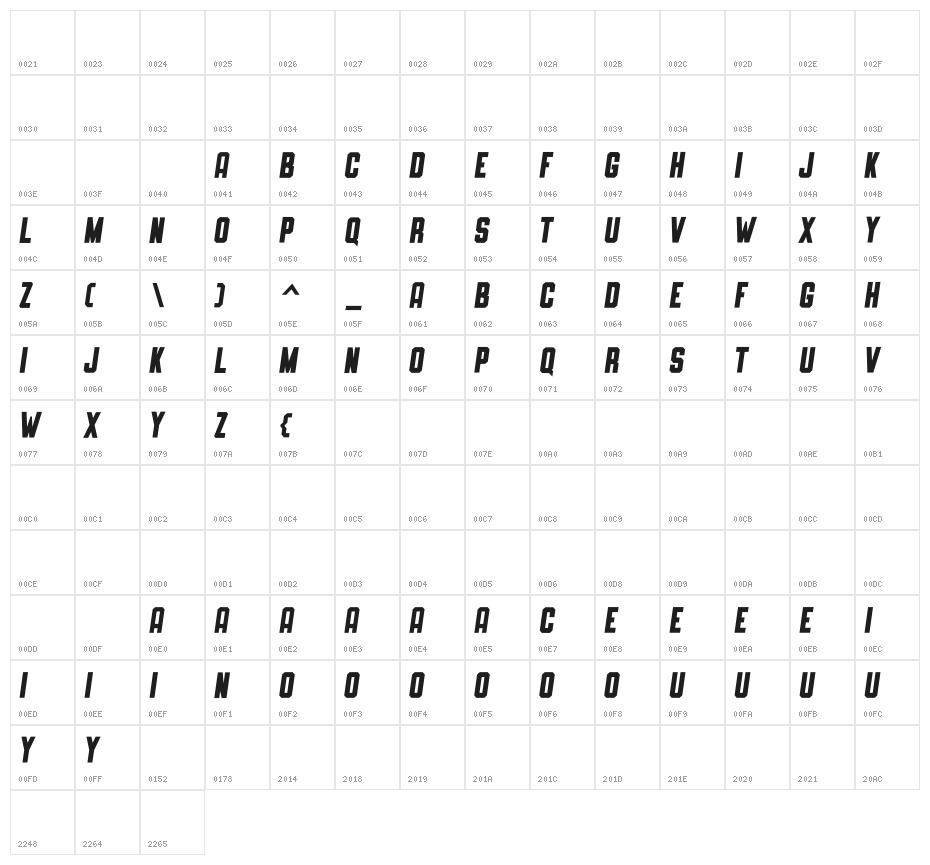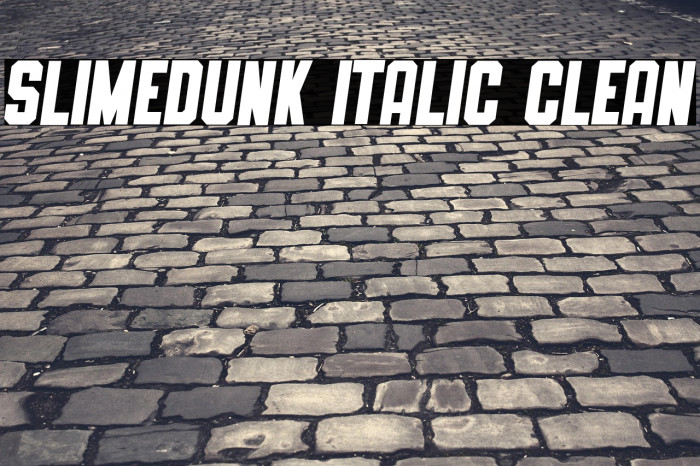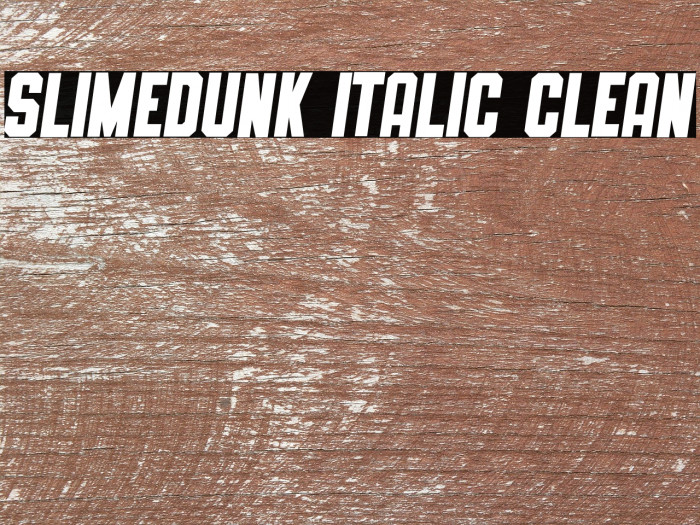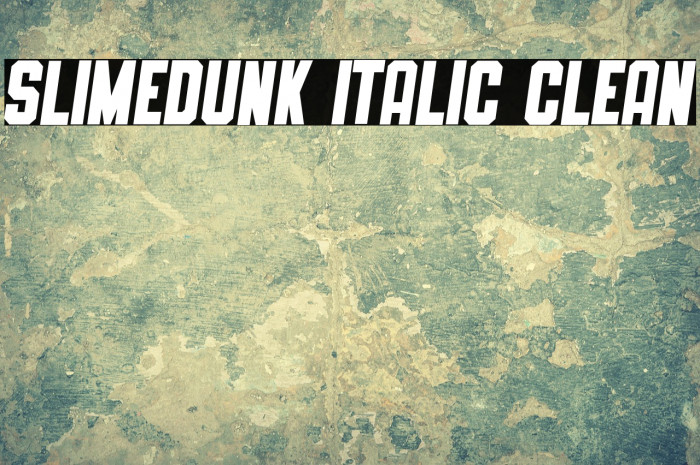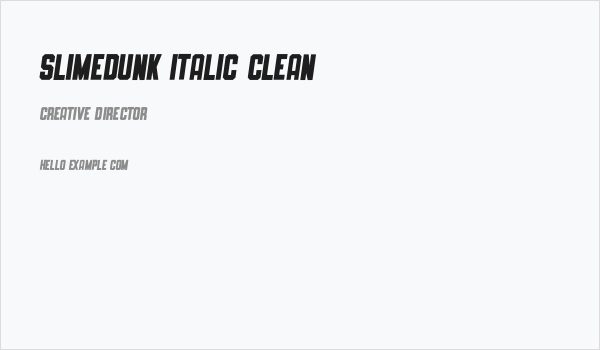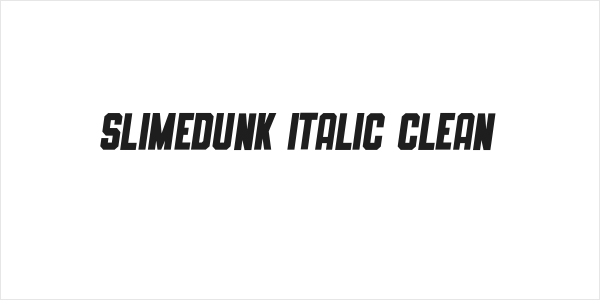
SLIMEDUNK ITALIC CLEAN Font
SLIMEDUNK ITALIC CLEAN Description
This font features a bold, italicized style with a strong, dynamic presence. The characters are sharply angled, giving a sense of movement and energy. The uppercase letters are consistent in height, with a slight slant that enhances the italic effect. The design is clean and modern, with a focus on readability and impact. The bold weight of the font ensures that it stands out, making it suitable for attention-grabbing headlines or titles. The absence of lowercase letters and special characters suggests a focus on simplicity and directness.
| Proposed Projects | Ideal for sports branding, posters, and dynamic headlines. |